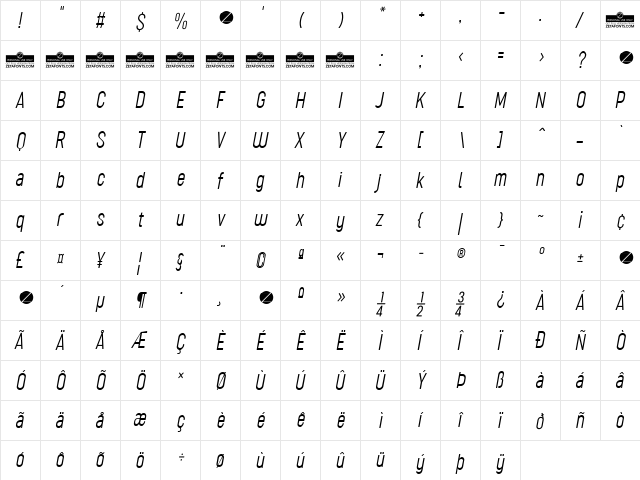
Sugo Pro Classic Trial ExtraLight Italic Font Preview
Design Context for Sugo Pro Classic Trial Typeface
Sugo Pro Classic Trial wears its vintage influences proudly, with letterforms that recall mid-century signage, classic packaging, and nostalgia-driven design. Its italic angle brings a sense of urgency and motion to the letterforms. The delicate stroke weight brings airiness and refinement to layouts.
Perfect for vintage-inspired branding, retro packaging, nostalgia campaigns, and period-accurate editorial design.
Font Pairing: Combine Sugo Pro Classic Trial with a simple slab or neutral sans — period-accurate companions reinforce the vintage feel without competing for attention.
Pro Tip: Use Sugo Pro Classic Trial for headlines and pull quotes rather than body copy — its personality is best appreciated in short, focused bursts.